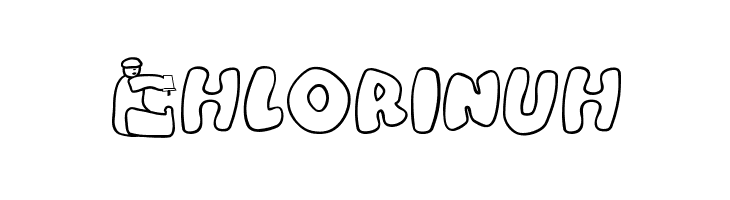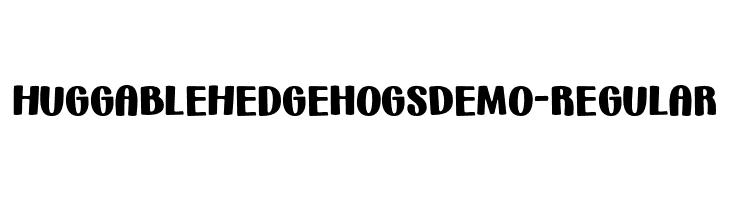
( Fonts by Caffeen Fonts - www.swank.ca/caffeen/fonts/ )
A playful, character-based font with a whimsical and animated style.
( Fonts by Alex Tomlinson - Skyhaven Fonts - shfonts.com )
A playful, hand-drawn font with bold, uneven strokes and a whimsical style.
A bold, geometric font with a sporty, structured appearance.
A bold, geometric outline font with a futuristic and dynamic style.
A bold, rounded, and geometric font with a modern, futuristic style.
( Fonts by Andi Moz )
A playful, rounded font with bold, smooth curves and a friendly appearance.
( Font Co. )
A bold, pixelated font with a retro, digital aesthetic.
( Fonts by Reguler Studio )
A playful, comic-style font with bold, rounded characters and thick outlines.